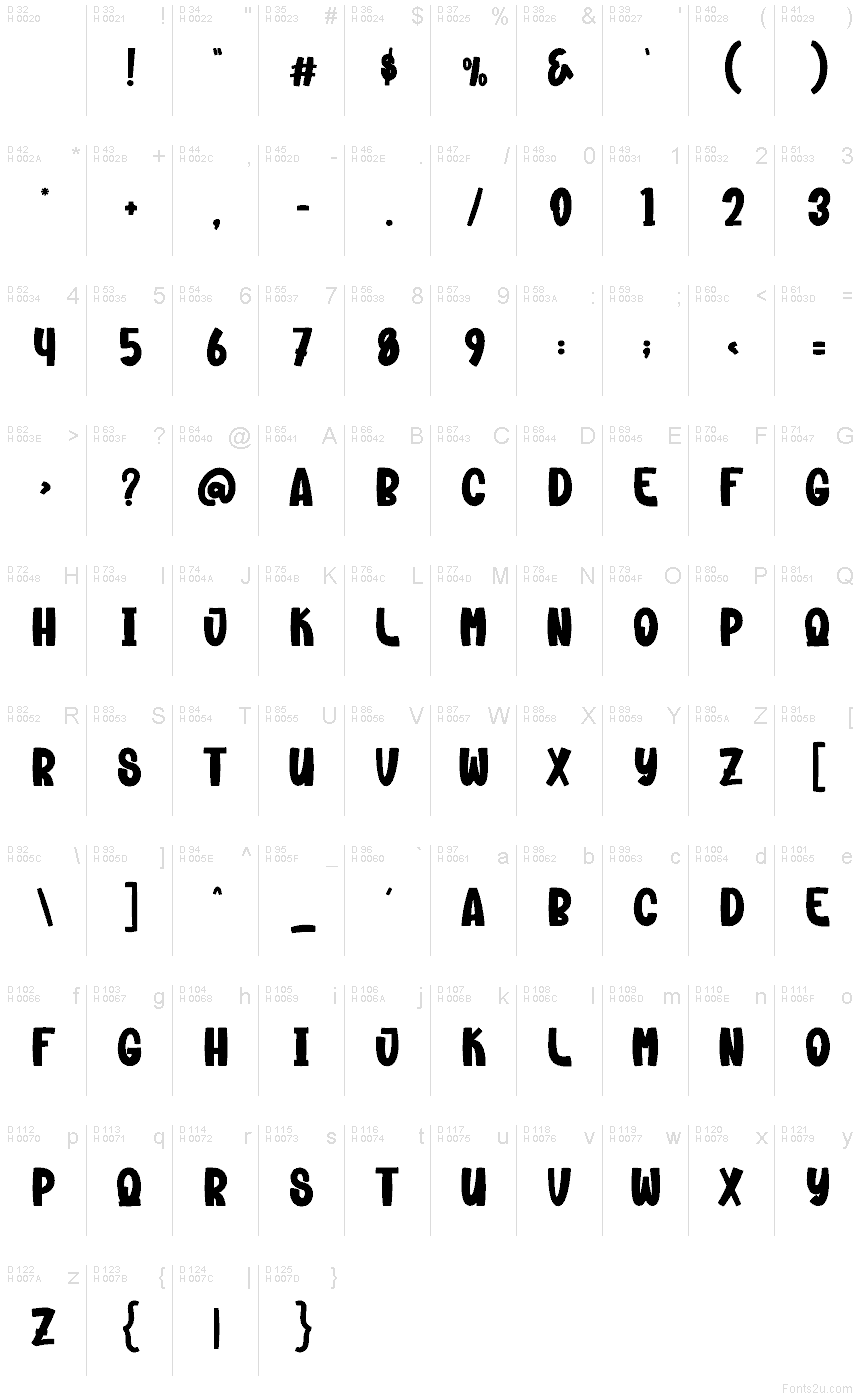
Night Winter
Night Winter font by Scratchones is a free display font with cartoon features made of bold and condensed letters. The design exhibits slightly irregular shapes with proportional imperfections and thick serifs; each letter expresses some sort of vulnerability in their characters, but when combined together they build robust titles and logotypes full of powerful energy.
Collaborations can be done with Night Winter on cartoons, bulletins, lectures, comics, passages, storyboards, educational materials for children, placards for kids’ events or schools. Users also love this typeface within personal online or offline notebooks where they write about their lives.